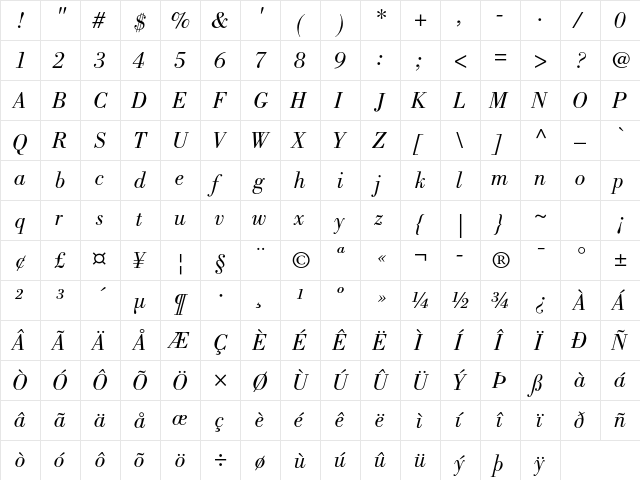
Bodoni Std Book Italic
| Designer | Morris Fuller Benton |
Design Context for Bodoni Std Typeface
Bodoni Std takes a measured approach to typography — its balanced proportions and neutral character make it a reliable workhorse for both digital and print work. The slanted form adds forward momentum and visual energy.